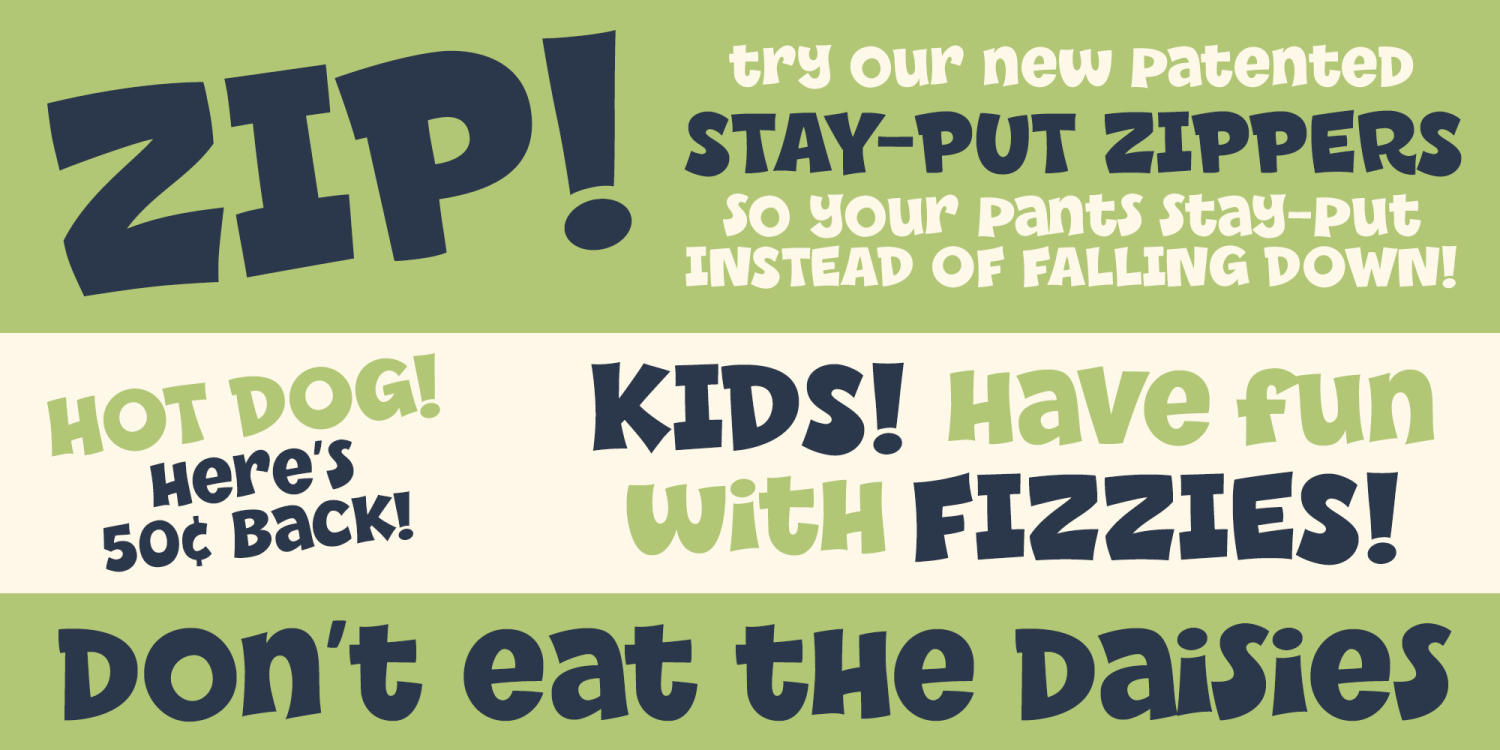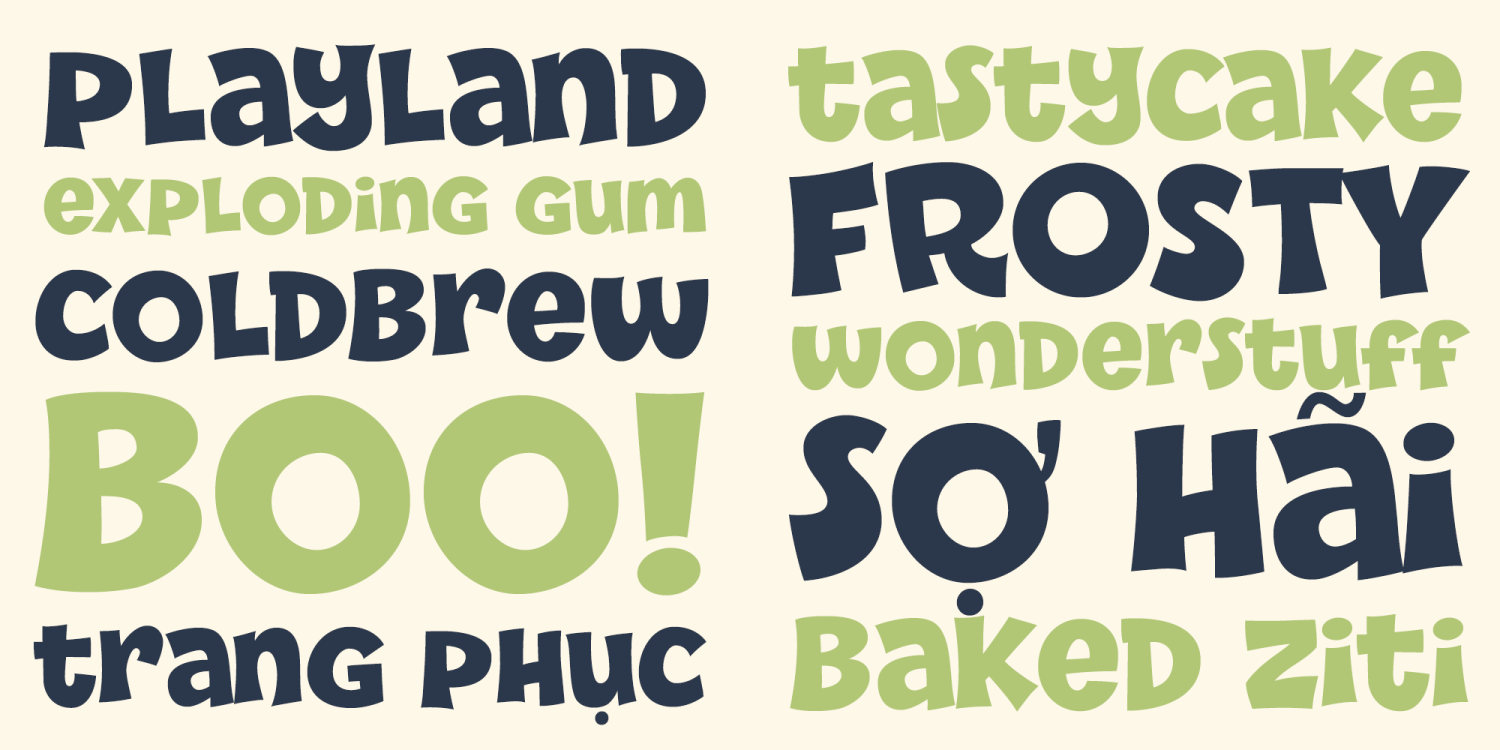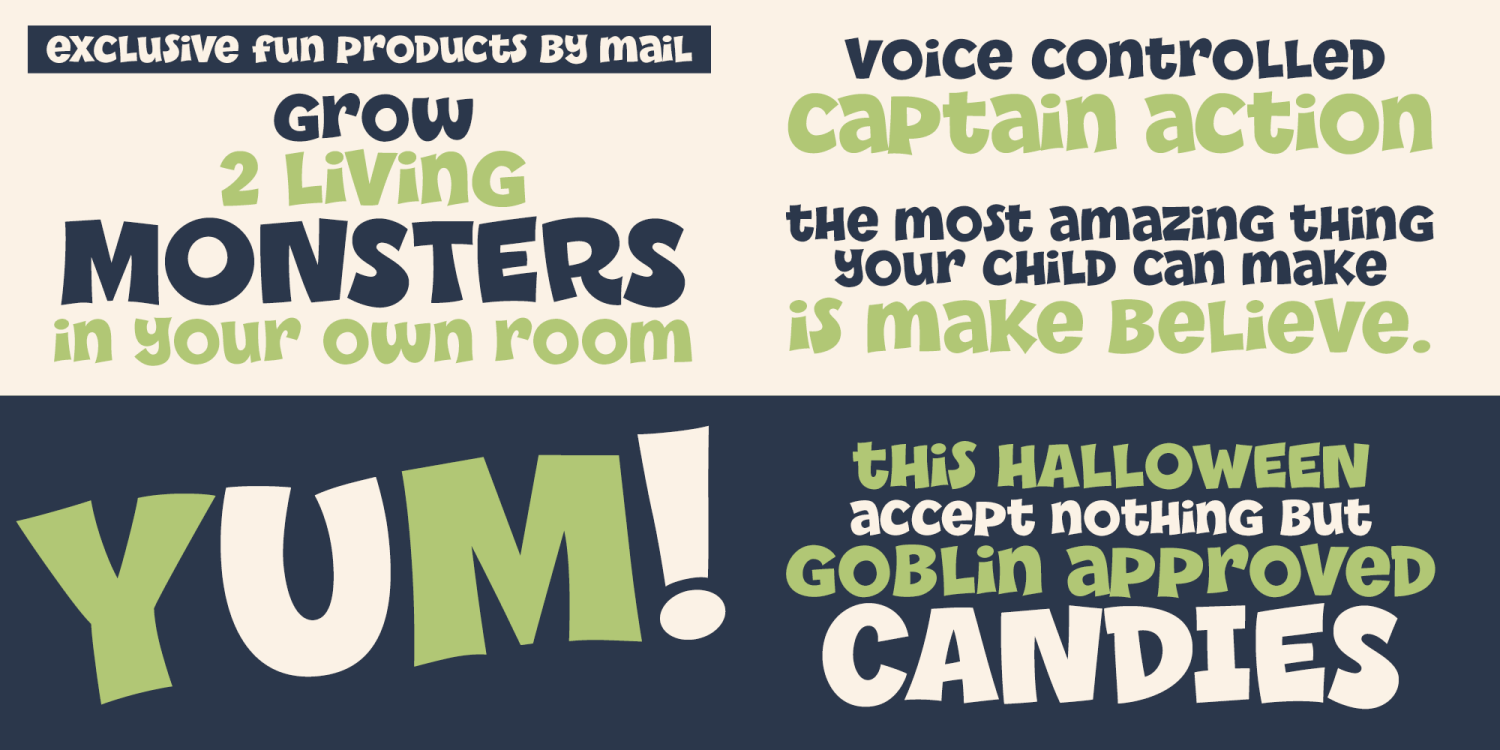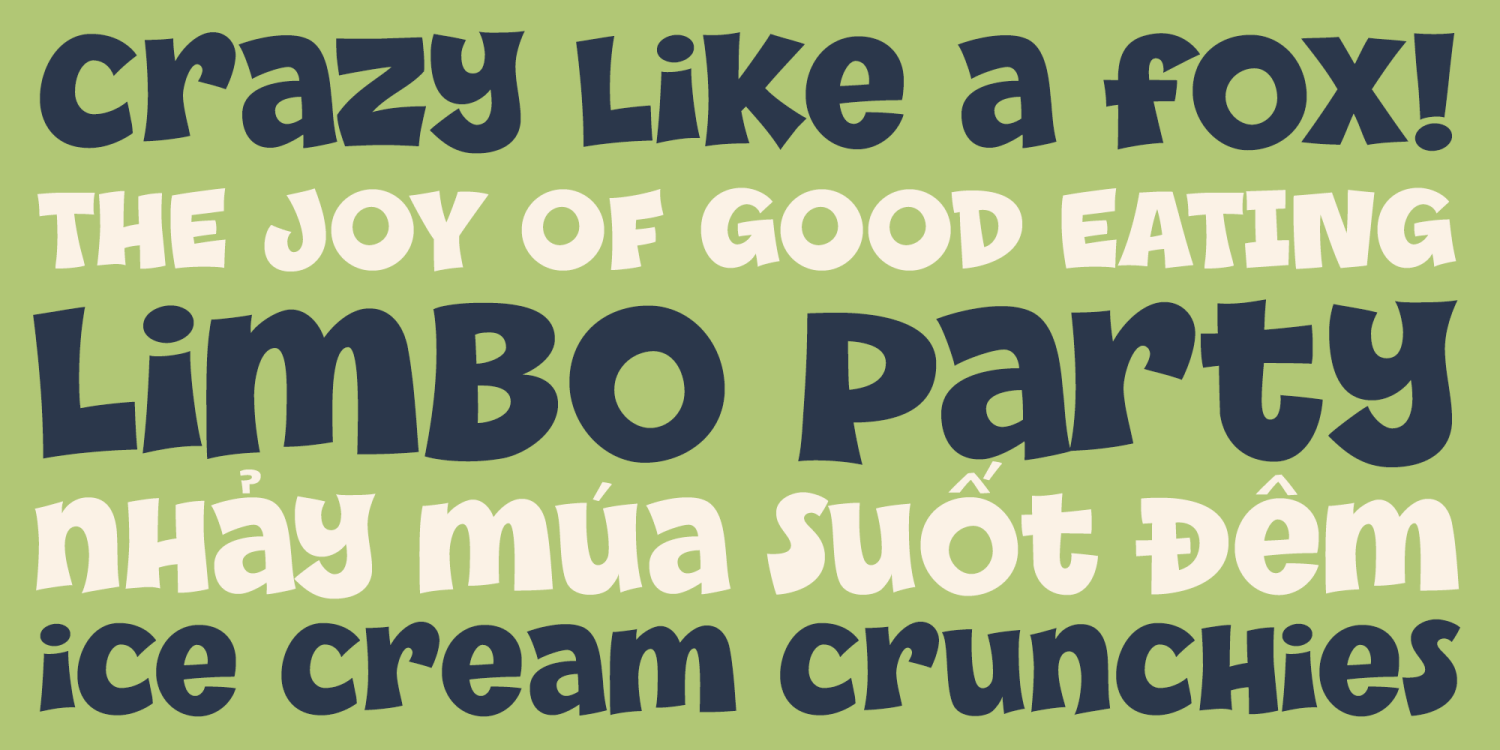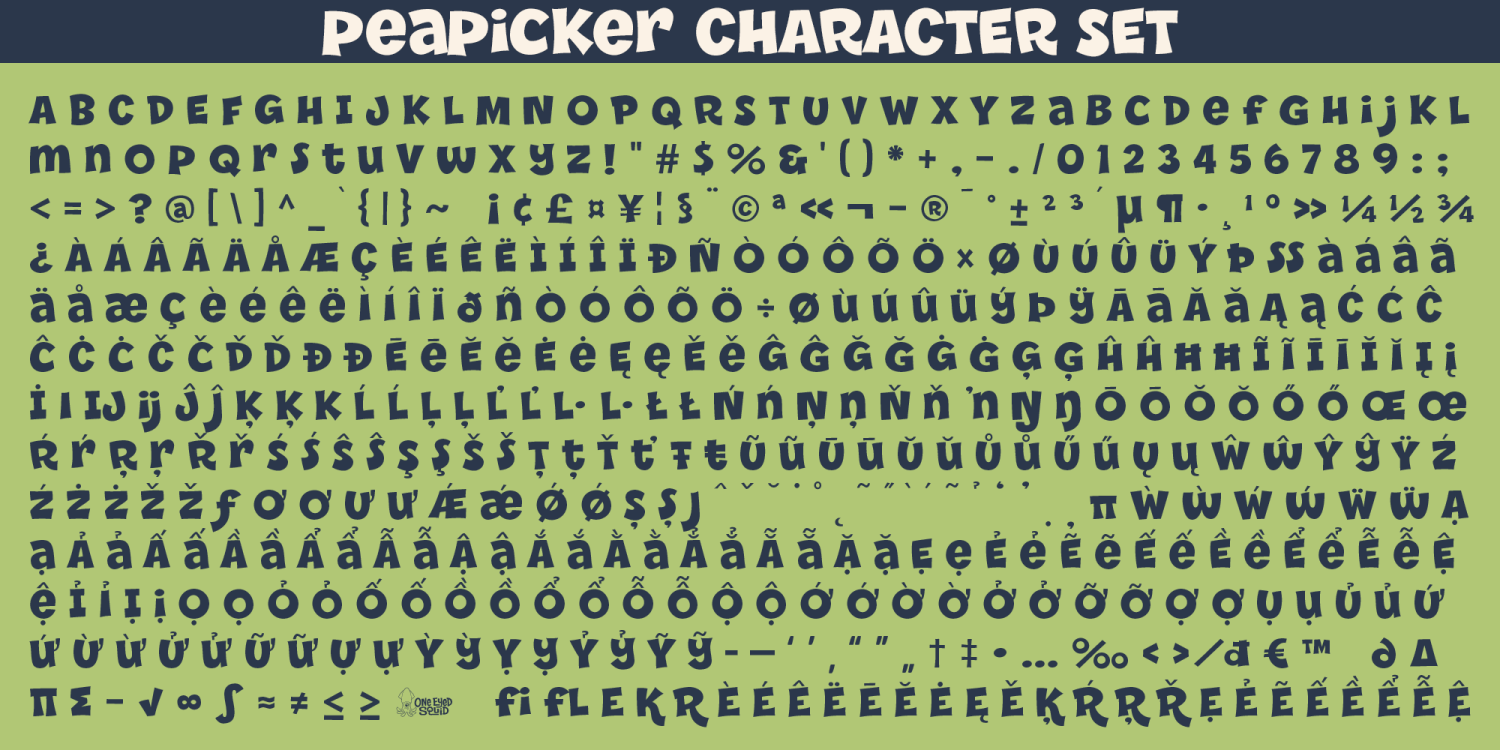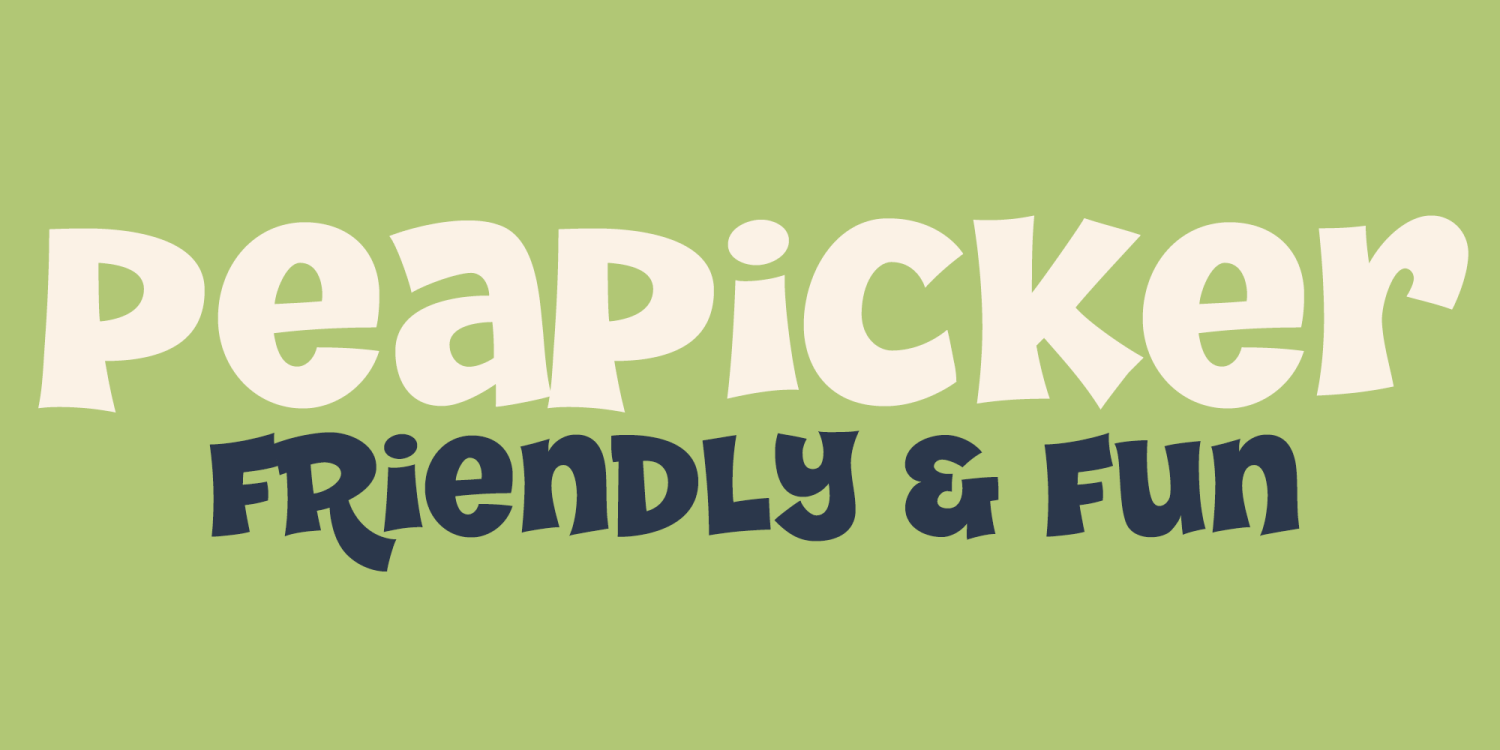
About Peapicker
Friendly and fun, bold and outlandish, it’s Peapicker! It’s unicase styling with Capitals and Lowercase at the same height give off a playful vibe that is great for some many uses and occasions. Type all Capitals for a slightly jovial but…